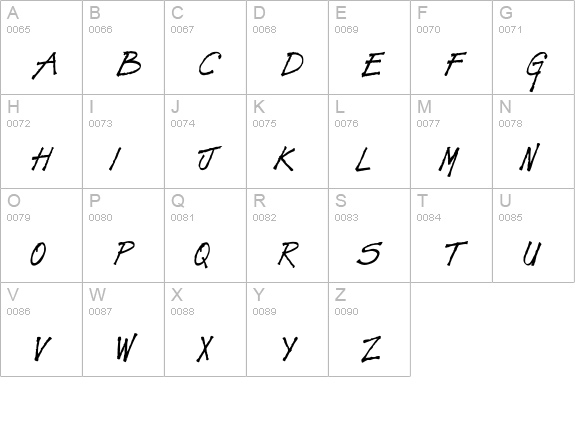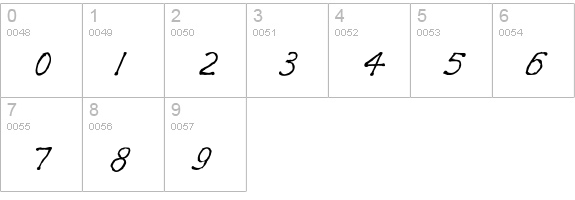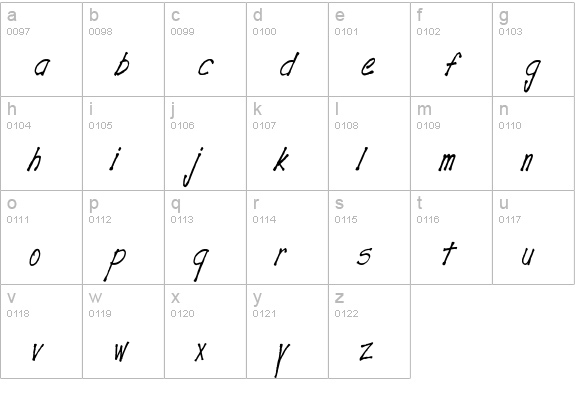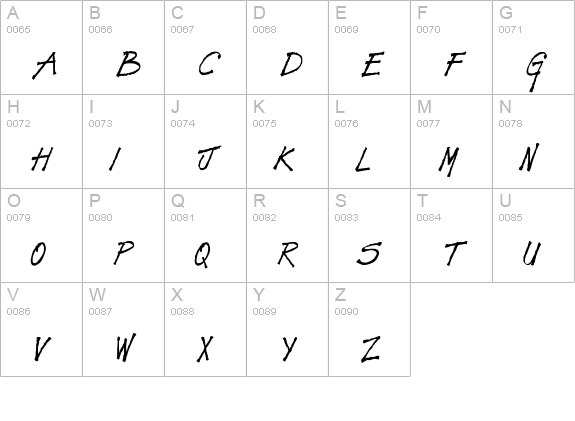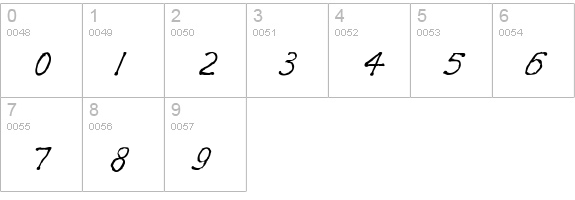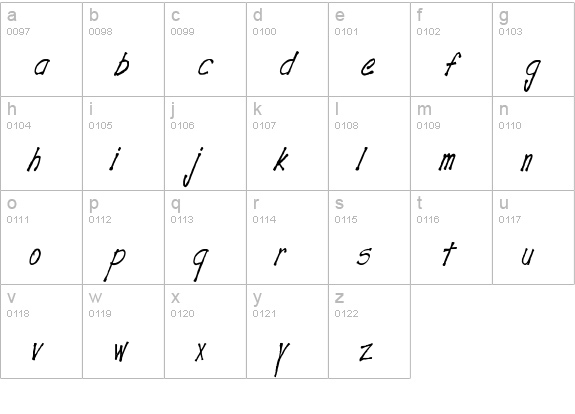
SavageFont Font Details
Introducing SavageFont, a dynamic and captivating font that exudes raw power and untamed creativity. With its bold and assertive letterforms, SavageFont commands attention and leaves a lasting impression on any design project. This font is not only visually striking, but it also offers a unique blend of elegance and fierceness. Each character is meticulously crafted with sharp edges and strong curves, creating a captivating contrast that embodies the essence of its name. Whether used for headlines, logos, posters, or branding materials, SavageFont instantly adds a touch of strength and originality to any composition. But what sets SavageFont apart from other fonts is its incredible value – it is completely free! Yes, you read that right. This extraordinary font can be freely downloaded and used for both personal and commercial projects. FontsMarket.com proudly offers SavageFont as a gift to designers, artists, and enthusiasts alike, empowering them to unleash their creativity without any limitations. Moreover, SavageFont is easily accessible and compatible with various design software and applications. Its versatility allows it to seamlessly integrate into any project, be it digital or print. From digital advertisements to merchandise design, this font adapts effortlessly to any medium, making it a valuable asset for any designer. So, don't miss out on this extraordinary opportunity to enhance your designs with SavageFont. Download it now for free at FontsMarket.com and bring a touch of audacity and individuality to your creations. Get ready to make a bold statement and leave a lasting impact with SavageFont – the font that defies convention and sets your designs apart from the rest.